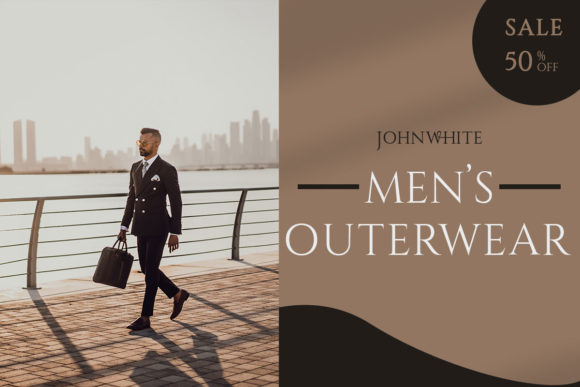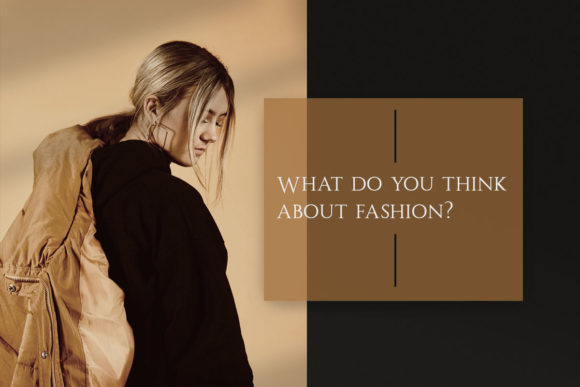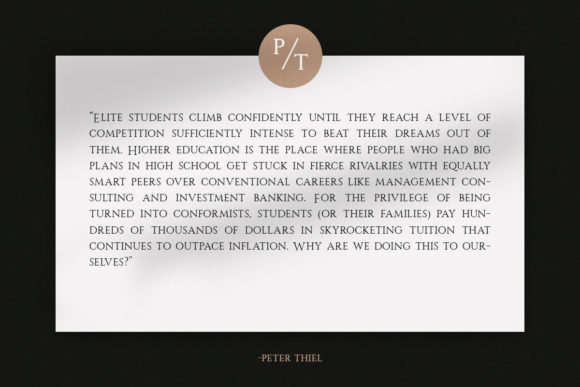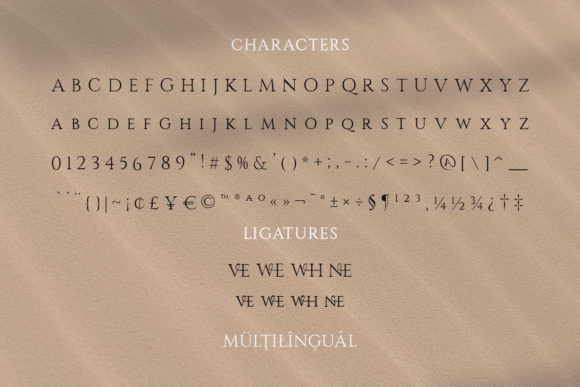
Introduction to Rosvelit Font
Have you ever been working on a creative project and couldn’t find the perfect font to bring it to life? The frustration of scrolling through endless options can be overwhelming, but what if I told you there’s a solution that’s both elegant and versatile? The Rosvelit Font is a game-changer for designers, offering a simple yet sophisticated design that can elevate any project to the next level.
As a valuable design resource, Rosvelit Font is a high-quality addition to any creative toolbox. Its clean lines and classic feel make it an ideal choice for a wide range of projects, from print materials to digital designs. Whether you’re looking for a free download or a reliable font to use in your professional work, Rosvelit Font is a great option to consider.
Key Features of Rosvelit Font
- High-quality design: The Rosvelit Font is crafted with precision and attention to detail, making it an ideal choice for creative projects.
- Transparent background: The Rosvelit Font features a transparent background, allowing for seamless integration with any design element.
- Large character set: The Rosvelit Font includes a comprehensive character set, including uppercase and lowercase letters, numbers, and punctuation marks.
- High-resolution design: The font is designed at a high resolution (300 DPI), making it suitable for print and digital applications.
- Unique style: The Rosvelit Font boasts a distinctive, modern design that sets it apart from other fonts in its class.
Honest Review: Rosvelit Font
I recently stumbled upon the Rosvelit Font, a free download that has caught my attention in the design world. This font is definitely a game-changer for creative projects, offering a unique touch that can elevate any design.
What works well: ✨ The Rosvelit Font boasts a high quality design, making it perfect for a wide range of design resources. Its transparent background allows for seamless integration with any background image or color, giving designers the freedom to create visually stunning designs.
The font’s versatility is another major advantage. It can be used in various design contexts, from logos and branding to digital products and web design. Whether you’re a seasoned designer or just starting out, the Rosvelit Font is an excellent addition to your design arsenal.
However, I did notice a few limitations: ⚠️ The font’s characters are not as extensive as some other fonts in the market, which might limit its use in certain situations. Additionally, the font’s style may not be to everyone’s taste, so it’s essential to use it judiciously.
Overall, I’m impressed with the Rosvelit Font’s potential. While it may not be perfect, it’s an excellent free download that can add a unique touch to your creative projects. With its high quality design and transparent background, it’s definitely worth exploring further.
- Unique and high-quality design
- Versatile and suitable for various design contexts
Rosvelit Font is a high-quality design resource perfect for creative projects. It offers a free download option, making it accessible to designers of all levels.
Use Rosvelit Font with a transparent background to create a clean and modern look.
Combine Rosvelit Font with other design elements, such as graphics and images, to create a visually appealing design.
Rosvelit Font is ideal for use in logos, branding materials, and other design projects that require a high-quality, modern font.
Use Rosvelit Font to create eye-catching titles and headings that grab the reader’s attention.